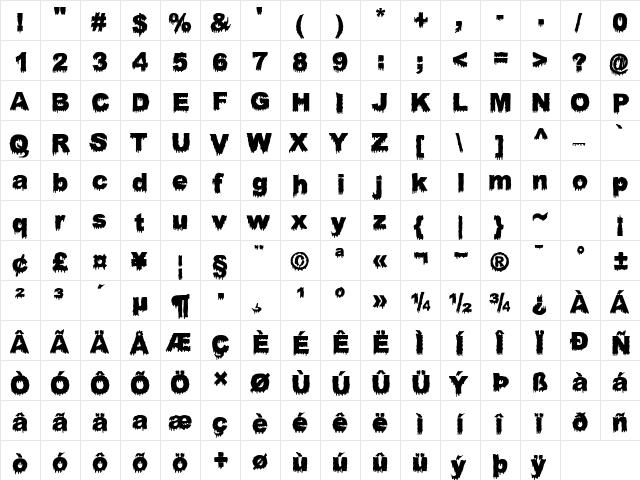
Bloody Stump Regular
Bloody Stump carries an unsettling edge — its distorted letterforms are built to unsettle, perfectly suited to horror, Halloween, and dark creative work.
Ideal for Halloween projects, horror film titles, haunted house signage, and dark editorial design.
Font Pairing: Pair with a clean neutral sans-serif for body copy to let Bloody Stump's character lead without overwhelming the composition.
Pro Tip: Bloody Stump works best as a headline or focal element. Pair it against plain, neutral body text to amplify the contrast.